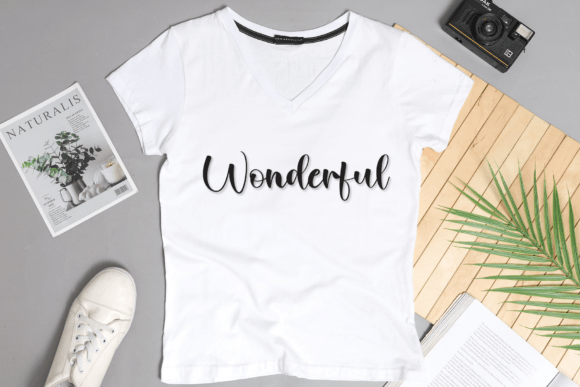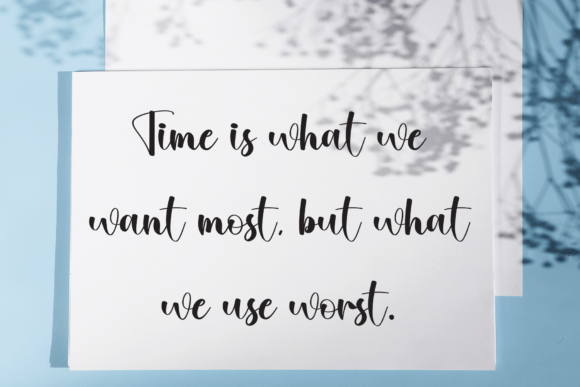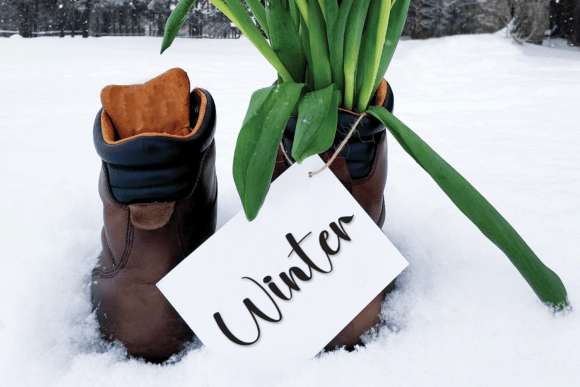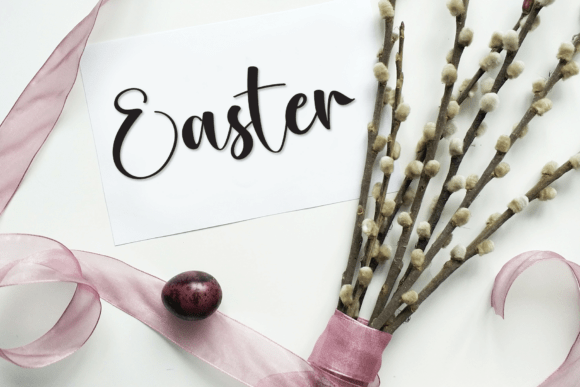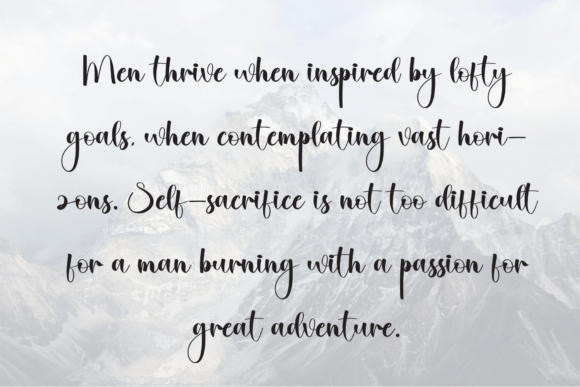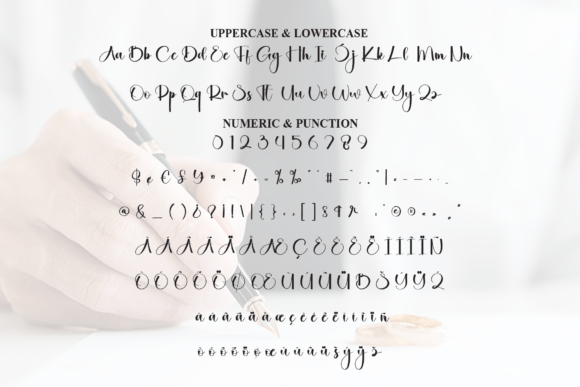
Introduction to Father Signature Font
Father Signature is a bold, sophisticated, and deeply personal handwritten script designed to convey a sense of authority and timeless elegance.
Characterized by its thick, confident downstrokes and graceful, sweeping loops, this โmodern typefaceโ captures the essence of a high-end executive signature Its rhythmic flow and professional silhouette make it a premier choice for masculine branding, luxury wedding stationery, legal or financial service logos, and personalized watermarks for photography.
Key Features of Father Signature Font